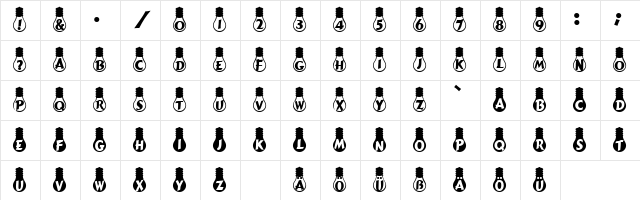
Complete Armleuchter DB Heavy glyph index. Displaying only characters natively supported by Armleuchter DB Heavy font.
Armleuchter DB is a composed and adaptable typeface that performs quietly and consistently across a wide range of design contexts.